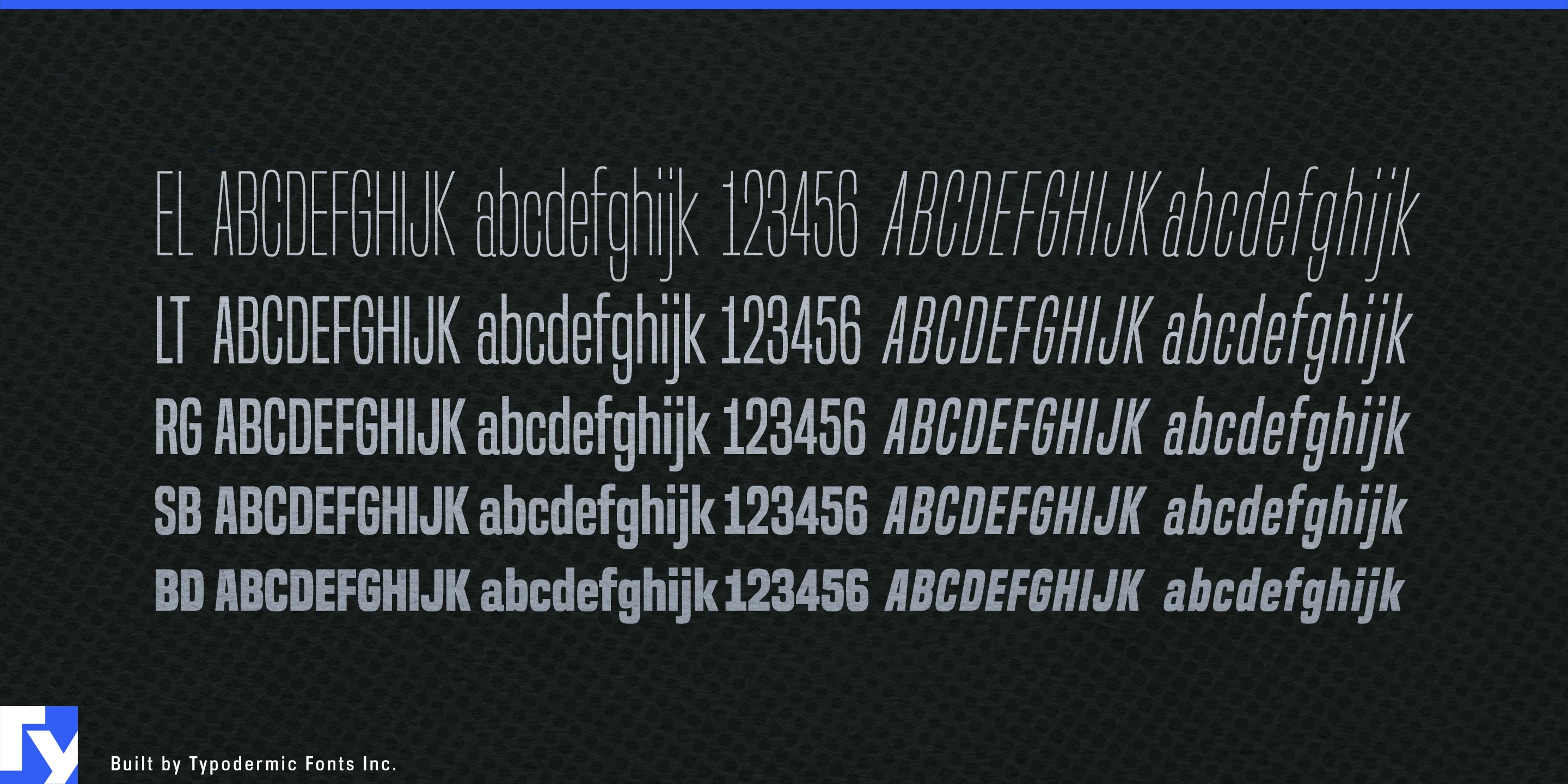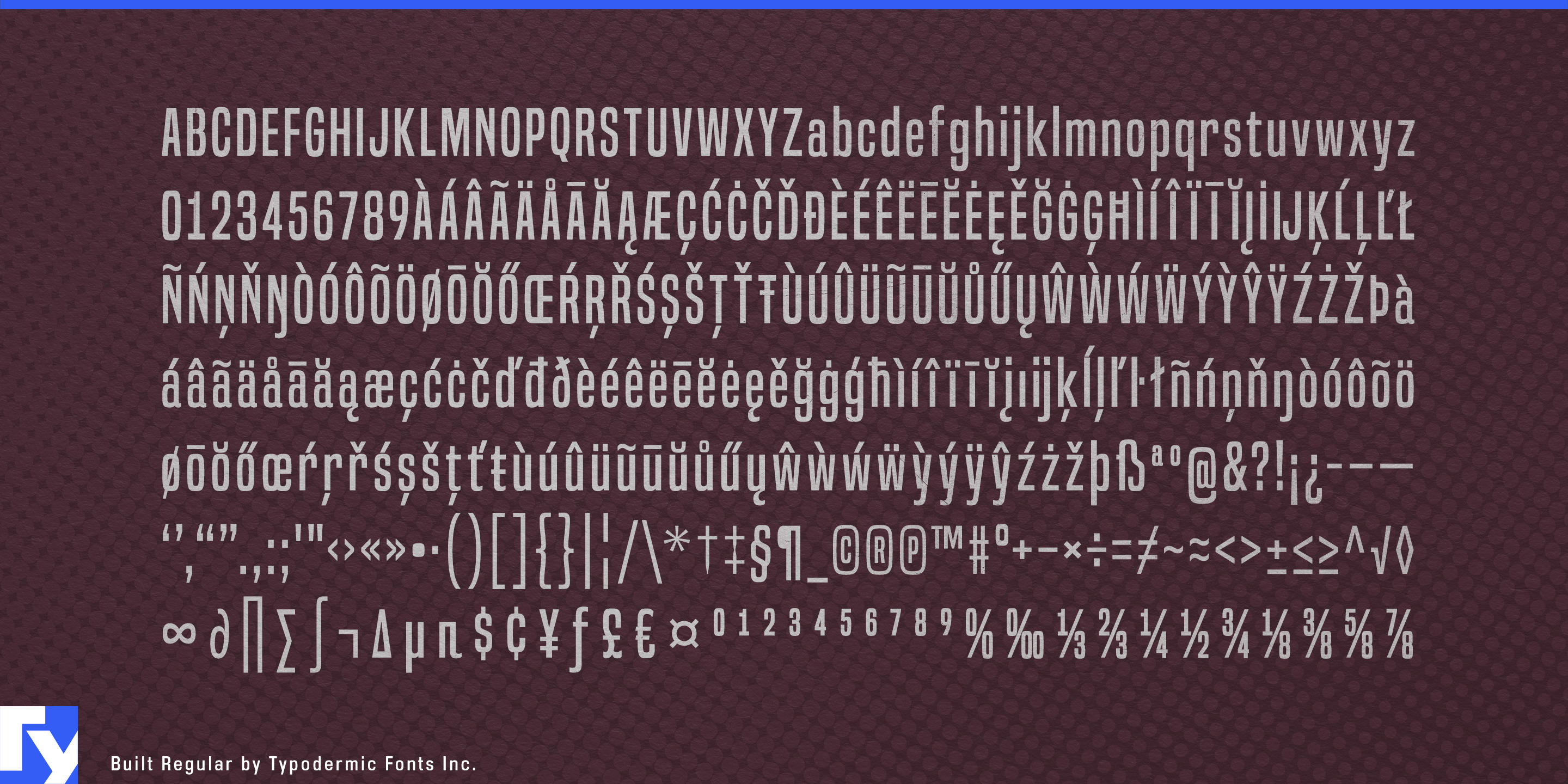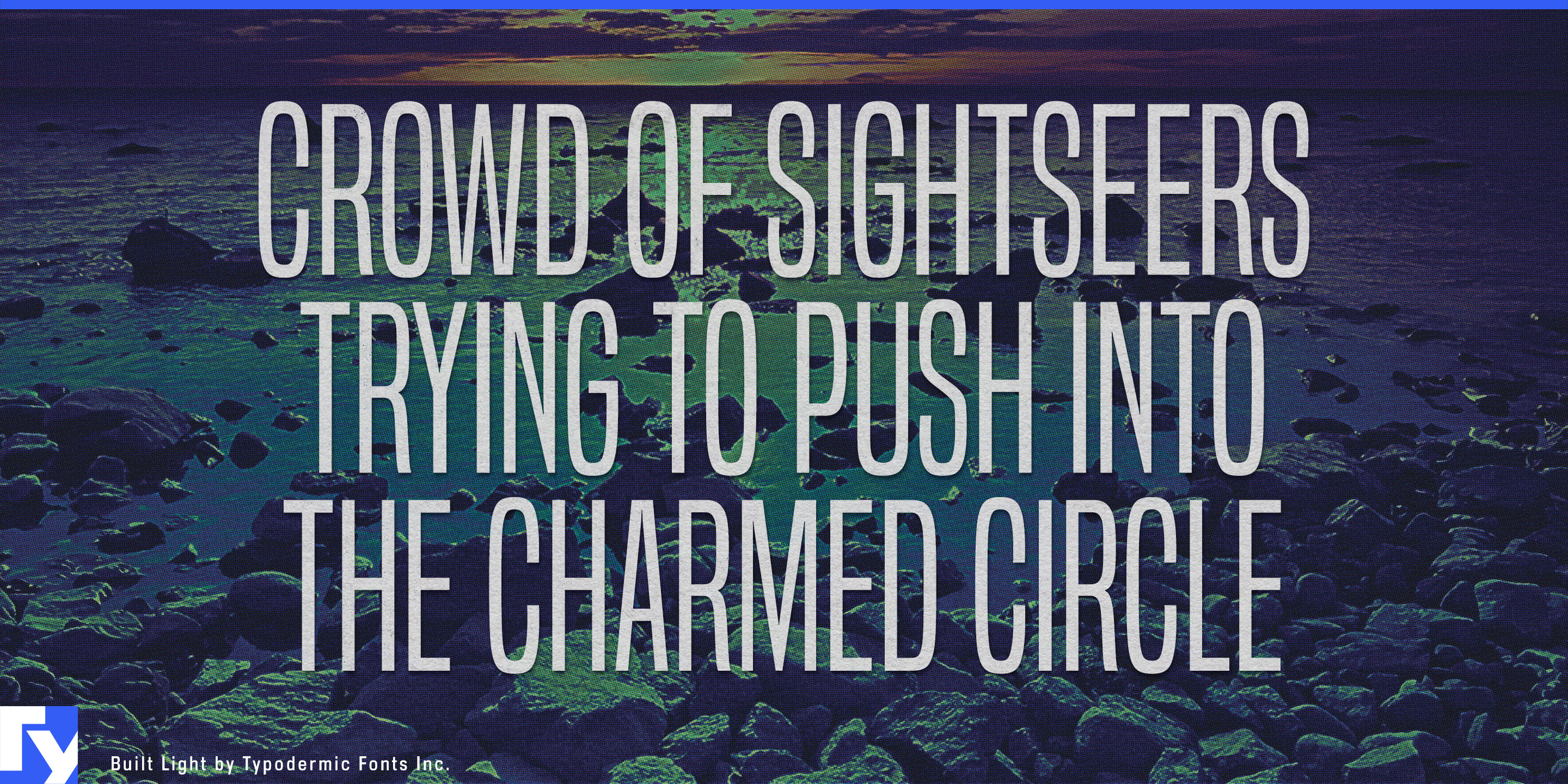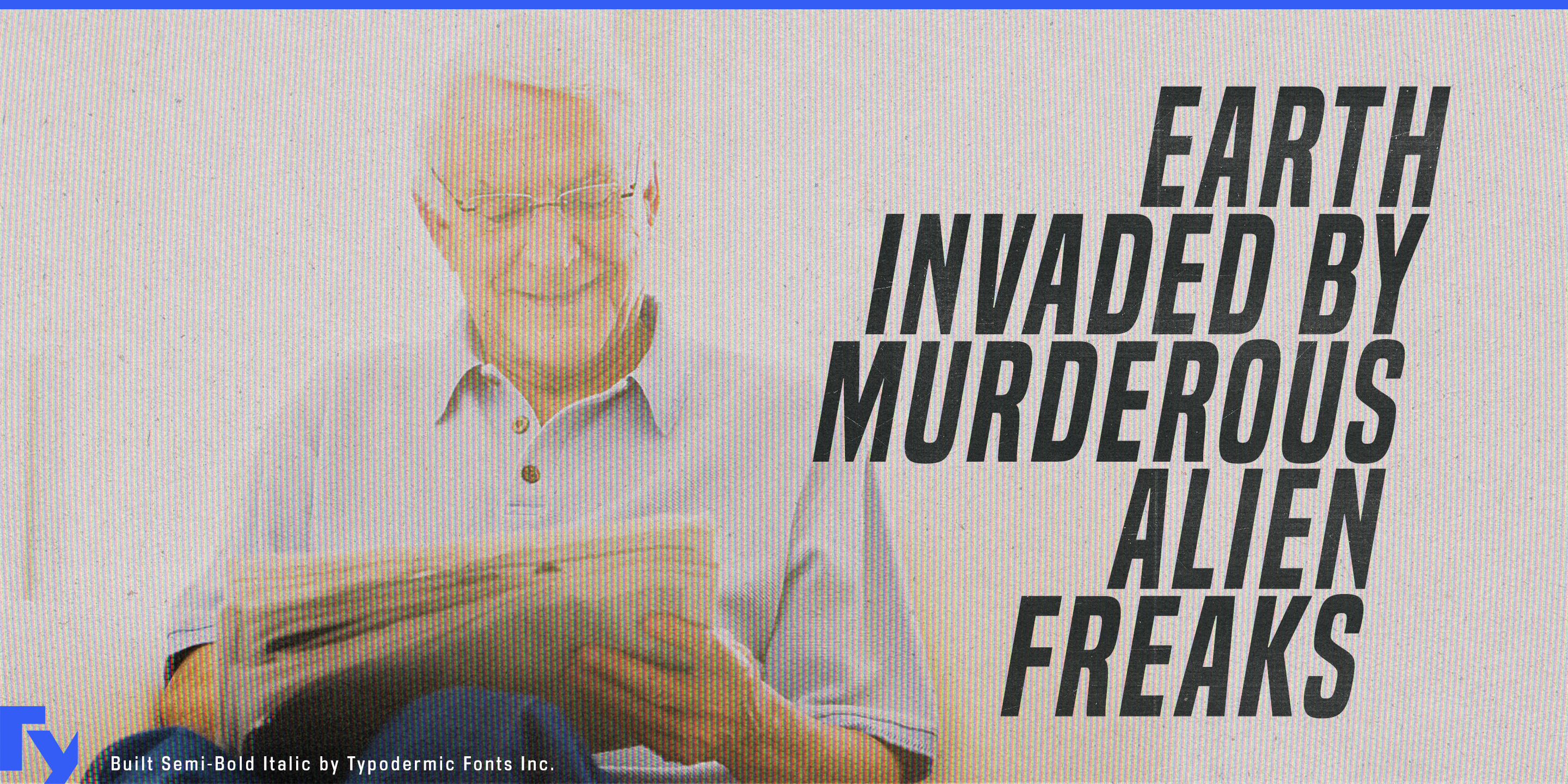
Built
Built was designed for headlines that have more to say than the available space wants to allow. Its proportions change across the weight range, with lighter styles drawn progressively narrower so designers can increase size without immediately running out of horizontal room. The result is a display family especially suited to professional publishing systems where headline length is unpredictable but visual hierarchy still matters.
Subscription intelligence platforms, market-research services, geopolitical-risk firms, supply-chain monitors, cybersecurity intelligence products, and regulatory-tracking services all work with long, specific headlines competing against charts, metrics, navigation, and related-story modules. Built can keep those headlines prominent across article cards, briefing pages, alert summaries, topic hubs, newsletters, and downloadable reports.
The same advantage applies to financial and investment research. Equity analysis, private-market intelligence, infrastructure funds, commodities research, real-estate data, and economic forecasting routinely produce sector outlooks, investment theses, portfolio briefings, and presentation decks where the heading itself carries substantial information.
Built also fits energy, infrastructure, and industrial research: grid modernization reports, battery-market analysis, automation studies, transport forecasts, manufacturing outlooks, and construction intelligence. Report covers, chapter headings, chart titles, executive summaries, conference graphics, and investor material can all share the same display system.
Specialist B2B media in aviation, logistics, telecom infrastructure, manufacturing technology, pharmaceuticals, and commercial transportation can use Built across daily articles, newsletters, buyer guides, technical explainers, and annual industry reports. Utilities, manufacturers, engineering firms, and transport operators can extend it into transition plans, quarterly operating reports, regulatory documents, technology roadmaps, and investor presentations.
Built gives designers another way to balance emphasis, size, and available width. That makes it especially useful wherever complex subjects still need commanding headlines.